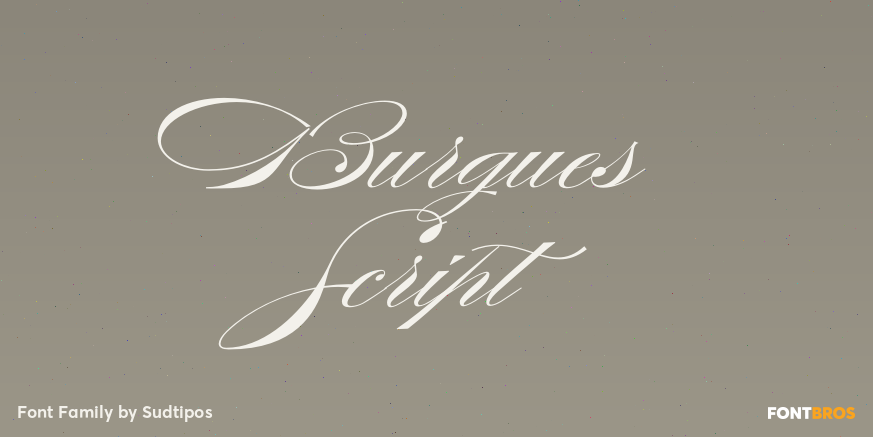
Burgues Script
About Burgues Script
Burgues Script is an ode to the late 19th century American calligrapher Louis Madarasz, whose legendary pen has inspired schools of penmanship for over 100 years. His talent has caused some people to call him \’the most skillful penman the world has ever…